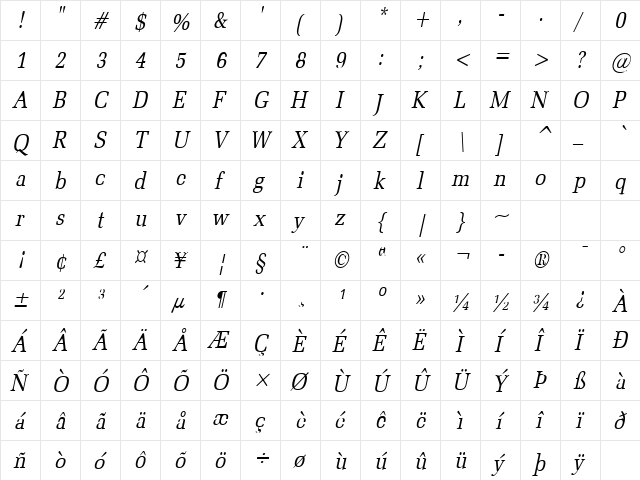
Bid Roman Condensed Italic Font Preview
Design Context for Bid Roman Typeface
Bid Roman takes a measured approach to typography — its balanced proportions and neutral character make it a reliable workhorse for both digital and print work. Its italic angle brings a sense of urgency and motion to the letterforms. The condensed width makes it efficient for tight spaces without sacrificing legibility.
Pro Tip: Use Bid Roman for emphasis, pull quotes, and subheadings where its slanted energy can add rhythm to the layout.